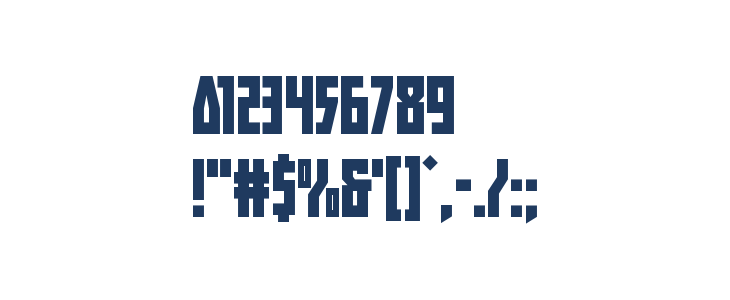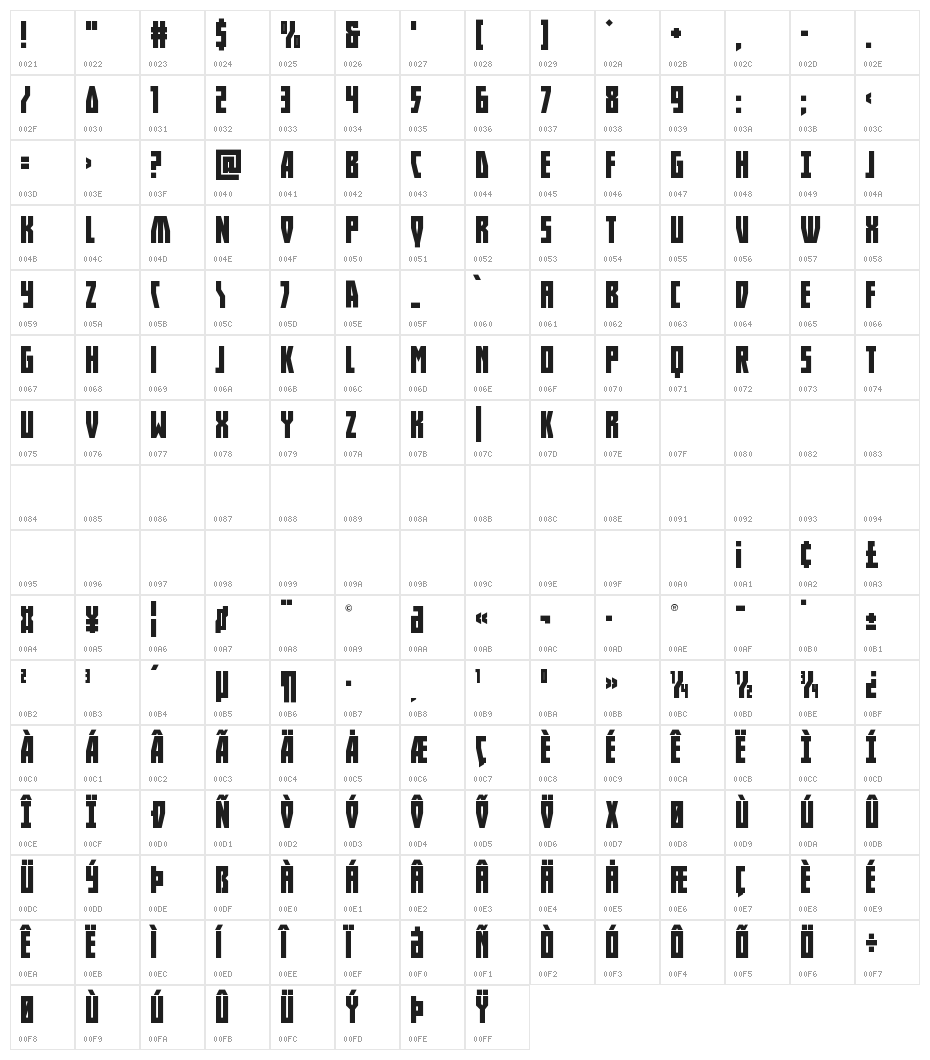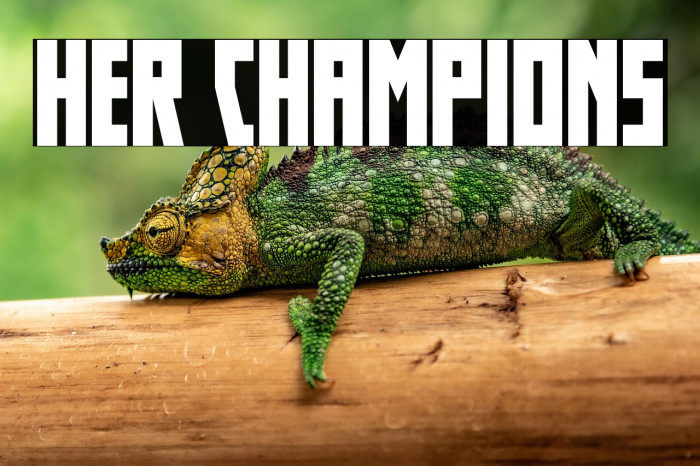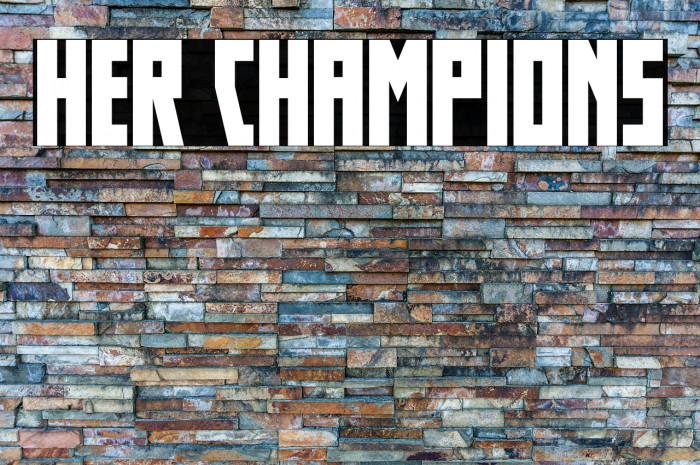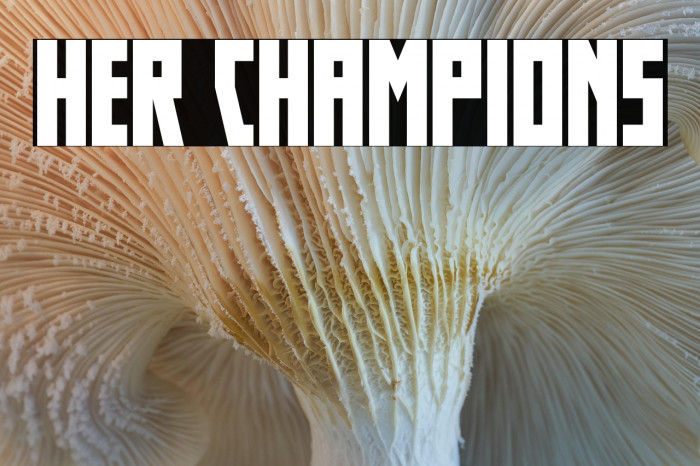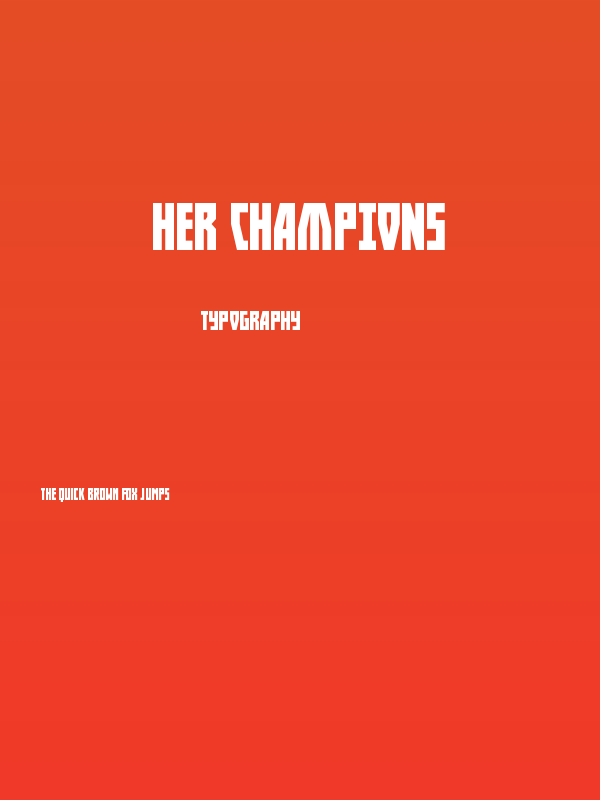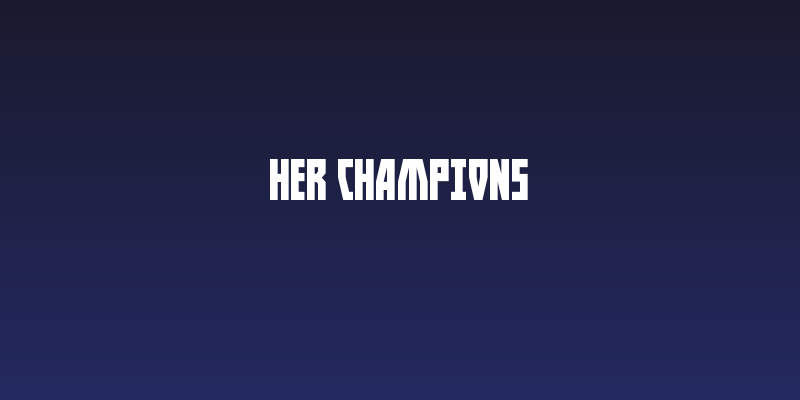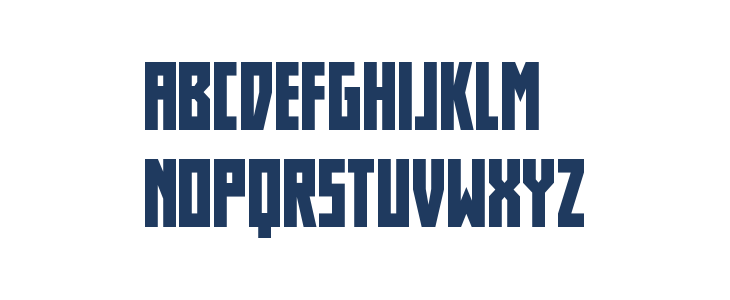
Her Champions Font
Her Champions Description
This font features a bold and geometric design with a strong presence. The characters are constructed with sharp angles and straight lines, giving it a futuristic and industrial feel. The uppercase letters are particularly striking, with a uniform height and width that create a cohesive look. The numerals and special characters maintain the same boldness and geometric style, ensuring consistency across all elements. The font's design is both modern and assertive, making it suitable for projects that require a strong visual impact.
Proposed ProjectsIdeal for branding, posters, headlines, and any design that requires a strong, modern aesthetic.